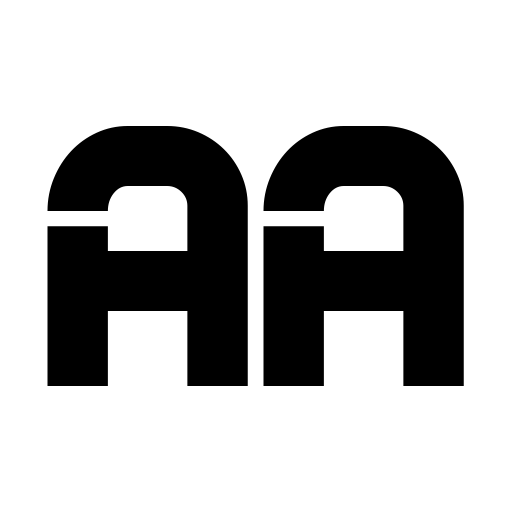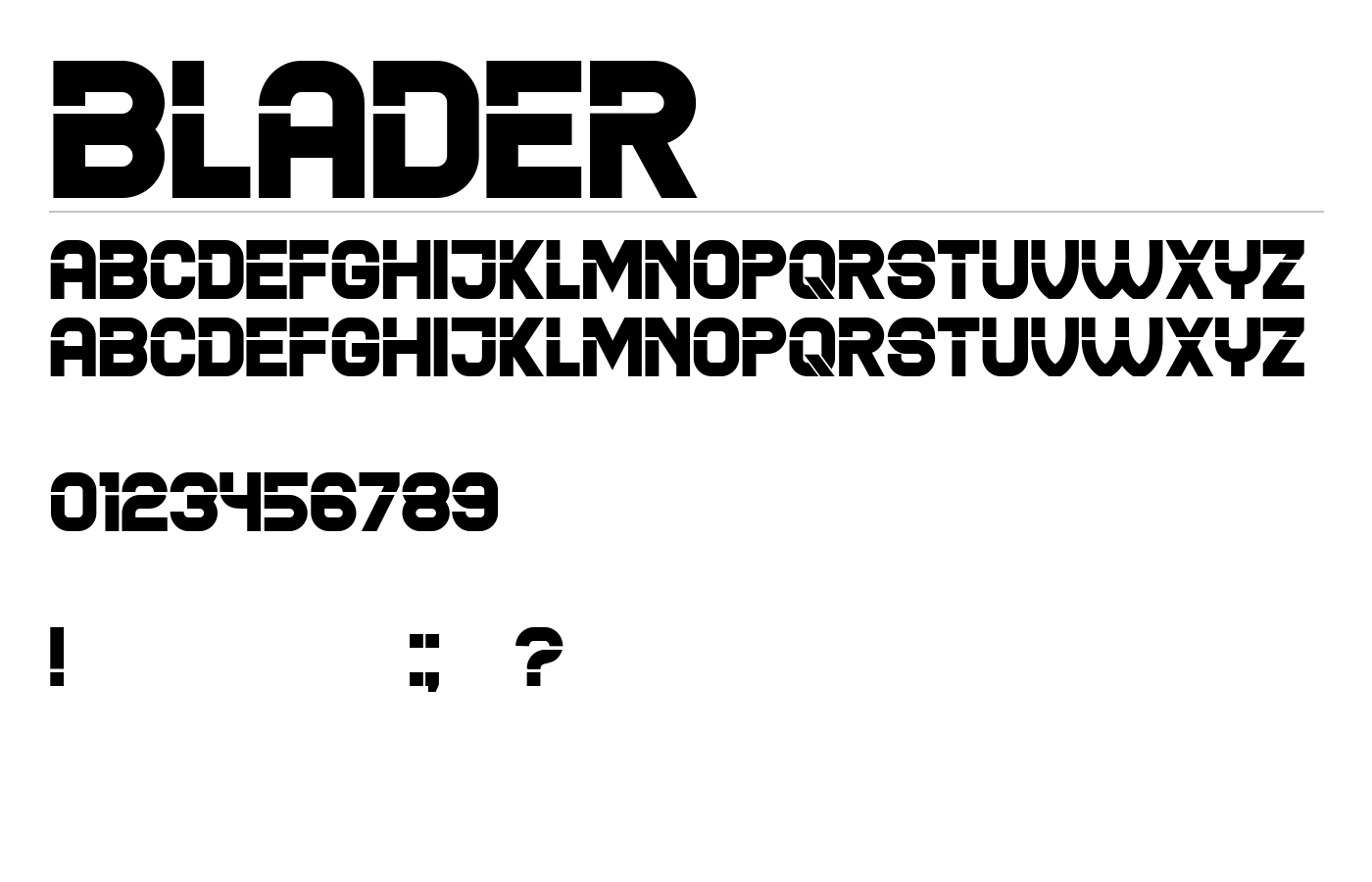
Blader is a bold, futuristic sans serif font with a strong, condensed structure and striking geometric cuts that give it a sharp, modern edge. Its high-weight strokes and unique angular details make it perfect for impactful headlines, logos, and branding that aim to convey innovation and confidence. This font works especially well in fashion, technology, and sports contexts where a bold, cutting-edge look is essential.
Blader Font
About Blader Font
| Font family | Blader Font |